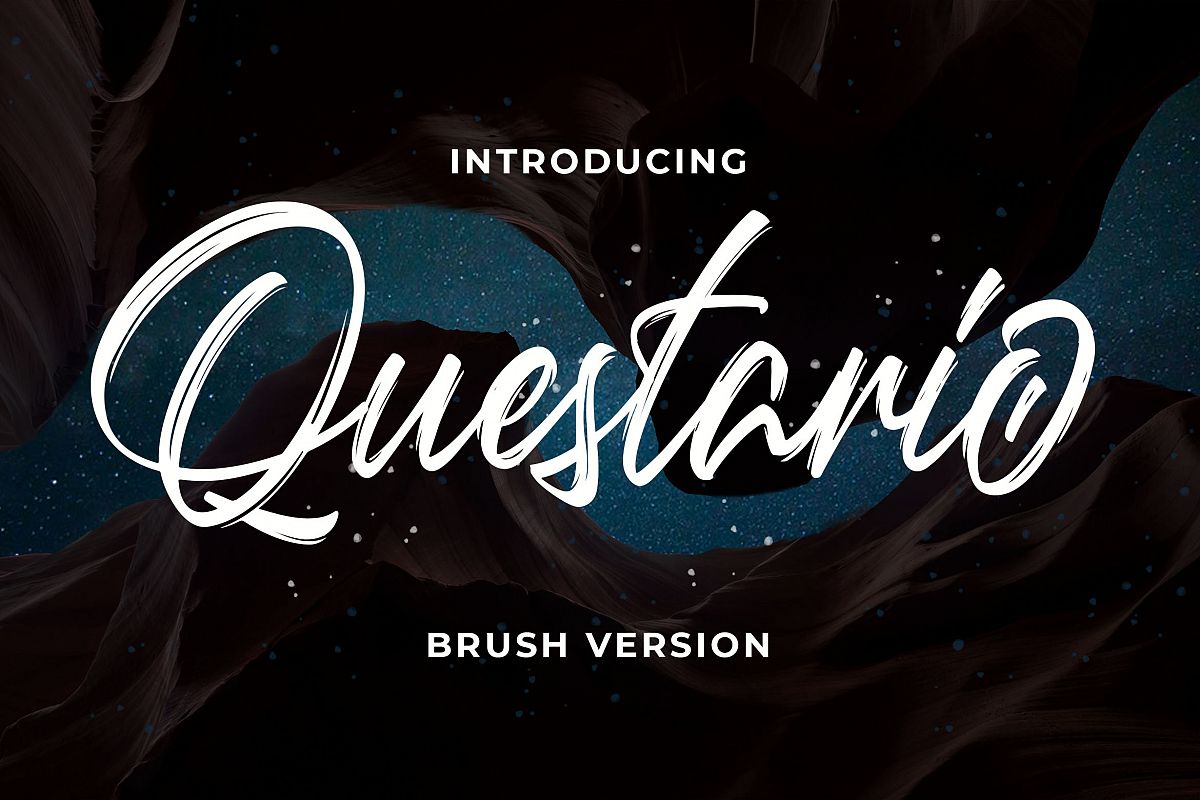
Introducing of our new product the name is Questario Brush Style Font. Questario Brush inspired by Brush calligraphy this font is a fun theme very good for signature, poster, fashion, wedding, branding etc
MULTILINGUAL ACCENT :ŽžŠŒšŸÀÁÂÃÄÅÆÇÈÉÊËÌÍÎÏÐŁÑÒÓÔÕÖØÙÚÛÜÝßàáâãäåæçèéêëìíîïłñòóôõöøùúûüýÿ
FEATURES :- Uppercase
- PUA Encode
- Opentype